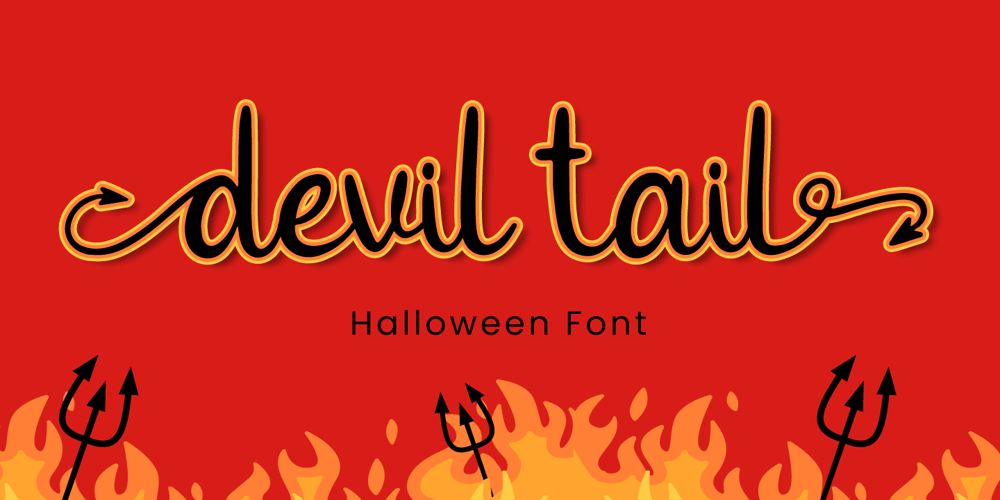
Devil Tail Font Family was designed by Fadli Ramadhan Iskandar and published by Attype Studio. Devil Tail contains 1 styles and family package options. Devil Tail is a delicate and incredibly distinct handwritten font. Fall in love with its incredibly versatile style and use it to create spectacular designs!Devil Tail is perfect for branding, logo, invitation, stationery, social media post, product packaging, merchandise, blog design, game titles, cute style design, Book/Cover Title and more.What’s Included :- Devil Tail.otf- Beginning & Ending Swash- Multilingual Support (Afrikaans, Albanian, Catalan, Danish, Dutch, English, Estonian, Finnish, French, German, Icelandic, Italian, Norwegian, Portugese, Spanisch, Swedish, Zulu)